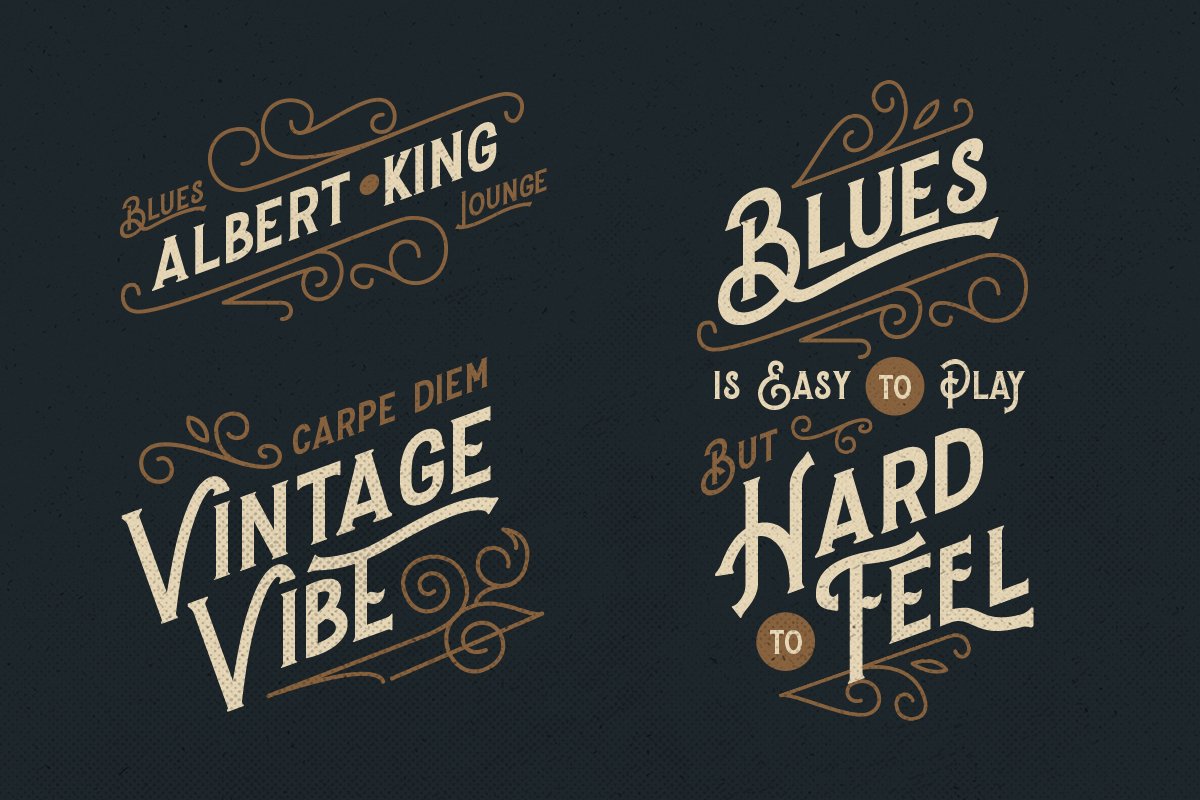
Stomper - A Vintage Display Font
Stomper - A Vintage Display Font is perfect for retro motorcycle club logos, vintage garage workshop signage, classic automotive restoration branding, throwback mechanic shop materials, nostalgic racing team graphics, old-school industrial company identities, vintage machinery advertising, classic truck stop promotions, retro construction equipment marketing, and heritage manufacturing business communications. This powerful typeface brings authentic vintage authority to classic car shows, retro motorsports events, vintage tool companies, old-school manufacturing firms, and nostalgic heavy industry branding.
Stomper - A Vintage Display Font is exciting because it captures the raw power and industrial heritage of vintage machinery through its boldly constructed letterforms that echo the golden age of manufacturing. The font features heavy, commanding characters with industrial proportions and vintage mechanical details that evoke the thunderous sound of steam engines, the reliable strength of classic machinery, and the uncompromising quality of old-school craftsmanship. Its distinctive construction demonstrates vintage industrial might with carefully aged elements that create an immediate sense of mechanical power and heritage authenticity. The font's industrial presence and vintage machinery appeal make it perfect for brands seeking to communicate raw power, mechanical heritage, and authentic vintage craftsmanship in their visual communications.
Stomper - A Vintage Display Font family includes various industrial styles: Light, Regular, Bold, Black, Aged, Weathered, Condensed, Extended, Industrial, Vintage, Heritage, and Mechanical variants. Each family member maintains the core vintage industrial DNA while offering different levels of mechanical power for diverse retro design applications. The comprehensive font collection ensures consistent vintage branding across heritage campaigns, classic automotive products, and nostalgic industrial marketing materials.
Stomper - A Vintage Display Font Free Download provides designers with an exceptional tool for creating authentic and powerfully engaging vintage industrial communications. This remarkable typeface seamlessly blends industrial heritage with contemporary functionality, making it ideal for both digital vintage platforms and premium retro-themed print materials. The font's carefully crafted vintage details and mechanical rhythm create memorable visual experiences that resonate with audiences seeking authentic industrial heritage, vintage craftsmanship, and classic mechanical power.
Whether you're creating vintage industrial brand identities, designing retro automotive marketing materials, developing heritage website headers, or crafting nostalgic mechanical promotional campaigns, Stomper - A Vintage Display Font delivers outstanding vintage appeal and industrial authenticity. The font's distinctive powerful personality excels in vintage logos, industrial packaging design, heritage applications, and mechanical projects where vintage power and industrial heritage are essential.